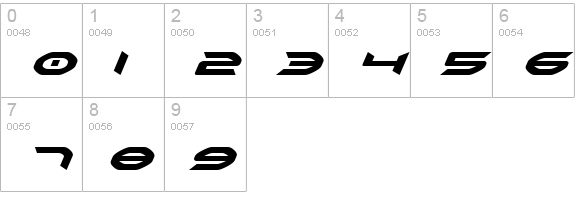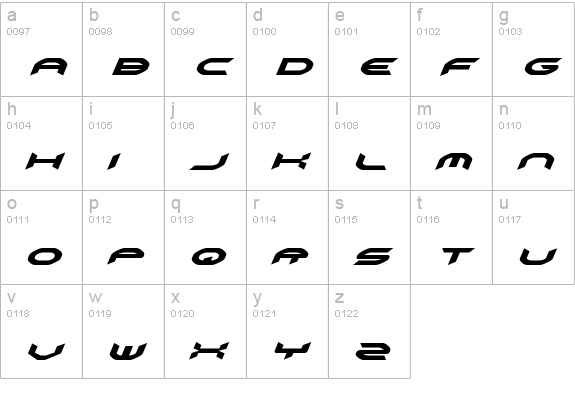
Omni Girl Italic Font Details
Omni Girl Italic is a distinctive, italic variant in the Omni typeface family \xE2\x80\x94 well suited to design and typography projects.
Omni Girl Italic font is a stunning display typeface that exudes elegance and sophistication. Its sleek and curvaceous design adds a touch of femininity to any project, making it perfect for fashion magazines, beauty blogs, and luxury branding. The italicized style of Omni Girl adds a dynamic flair, creating a sense of movement and energy. What makes Omni Girl Italic font even more appealing is that it is completely free to download at FontsMarket.com. This means you can elevate your designs with this beautiful typeface without any cost. Whether you're working on a personal project or a professional assignment, Omni Girl Italic font is a versatile choice that will surely make a statement. Download it today and add a touch of glamour to your designs!